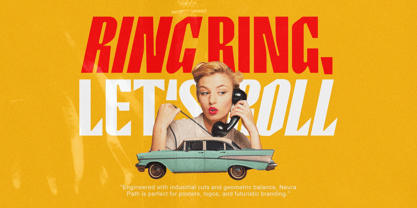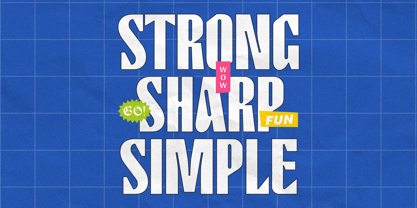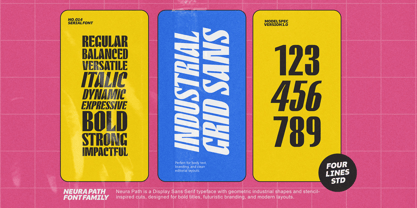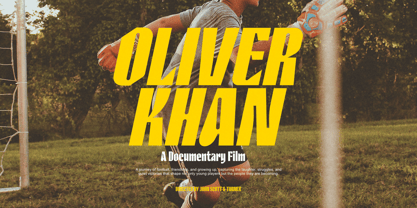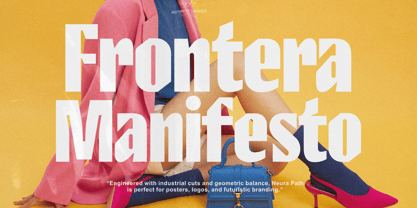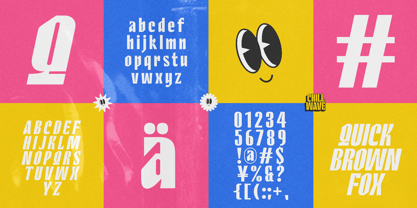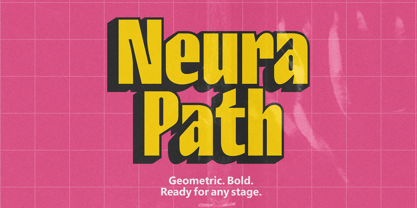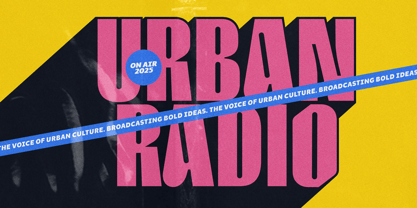
Neura Path
The Neura Path Font Family was designed by Zain Fahroni and published by Four Lines Std. Neura Path contains 4 styles and family package options. More about this family
Neura Path is a bold display sans serif that combines geometric industrial shapes with stencil-inspired cuts. It’s engineered to make an impact—balancing technical precision with a fun, energetic vibe. Perfect for bold titles, editorial design, branding, and creative showcases. The strong forms and unique letter details give Neura Path a futuristic edge while remaining versatile and highly readable. From fashion posters and product packaging to digital campaigns and experimental layouts, this typeface adapts seamlessly to any project that demands attention.